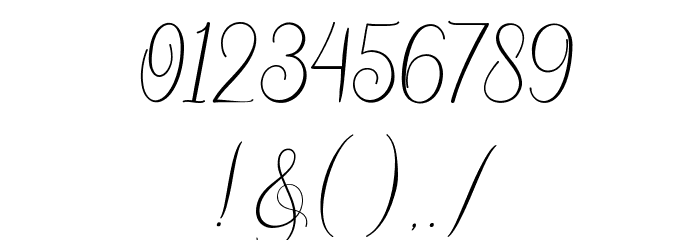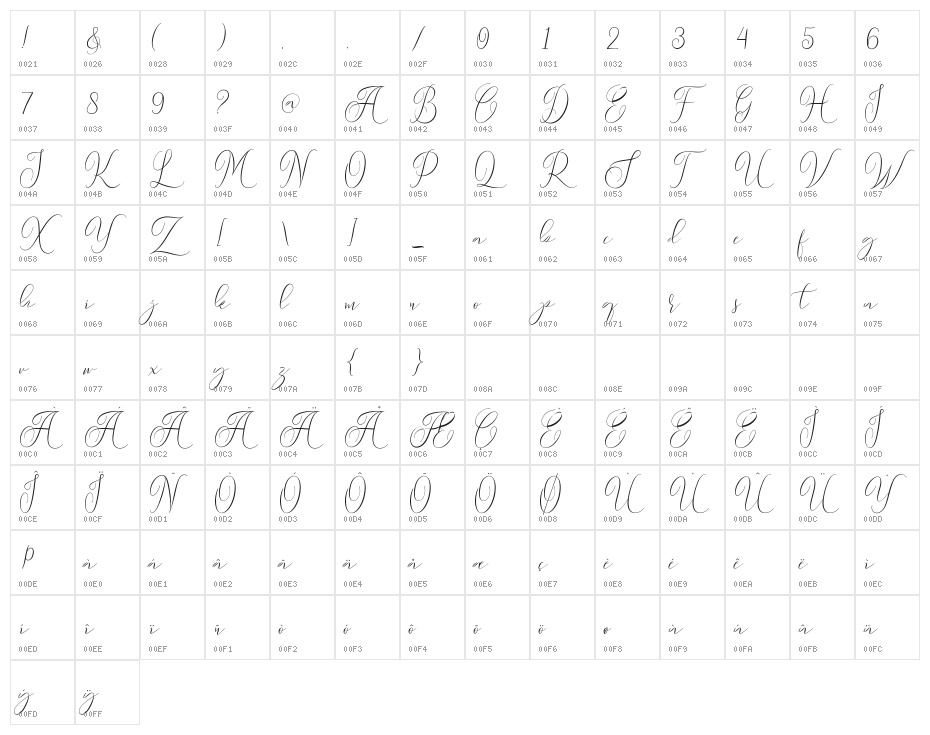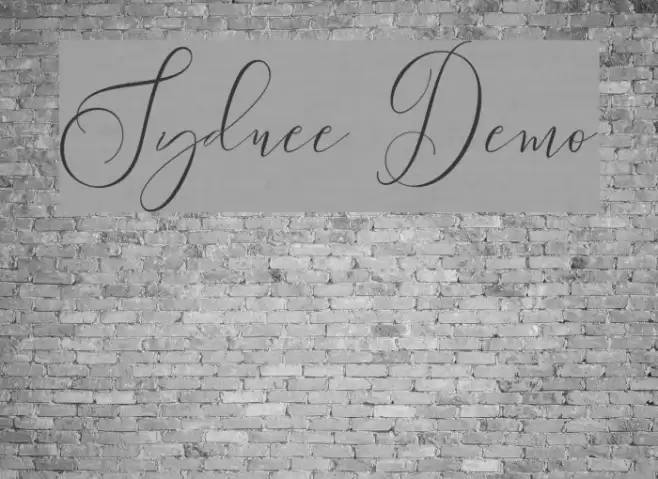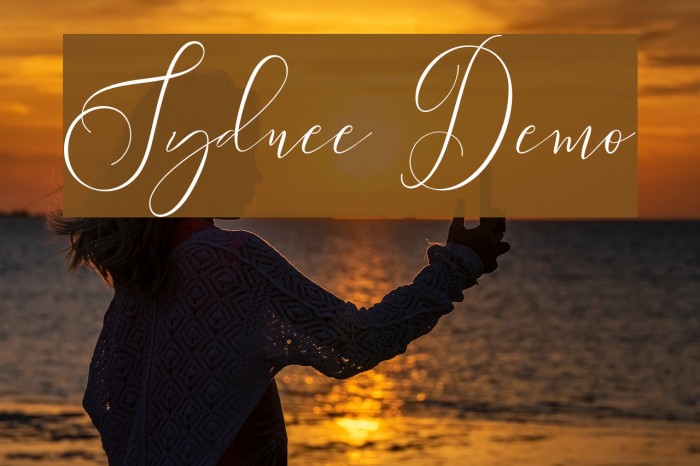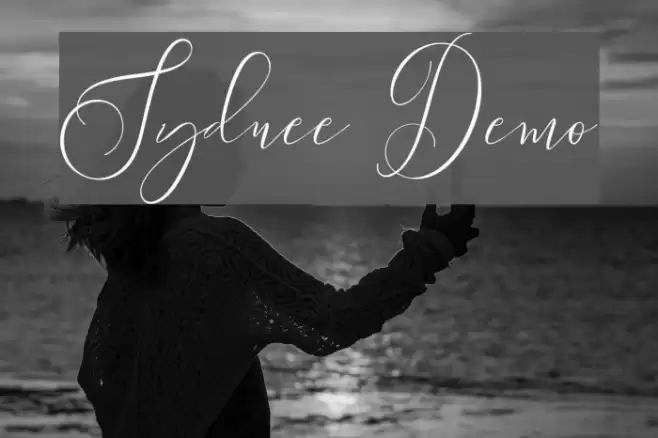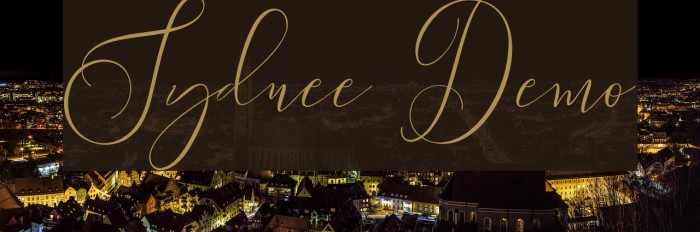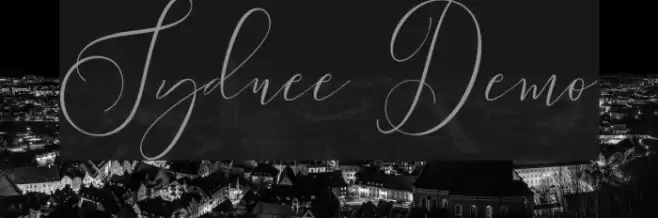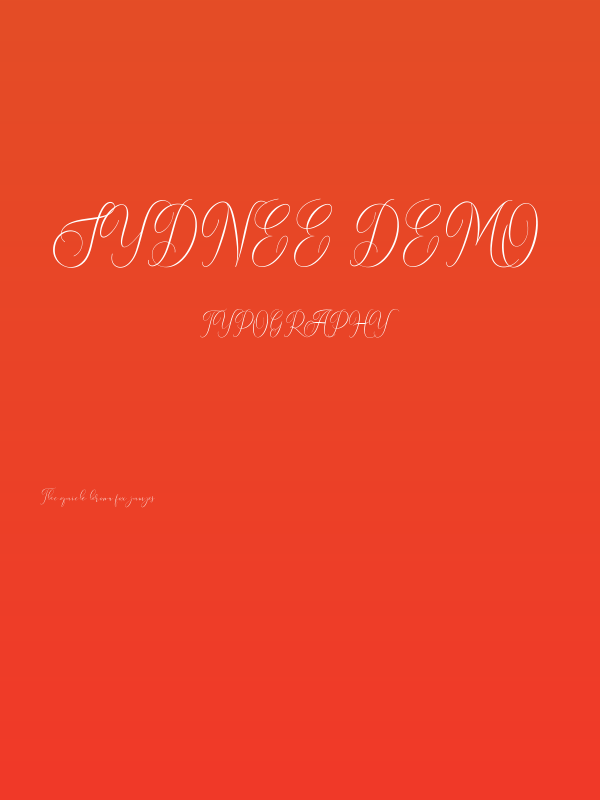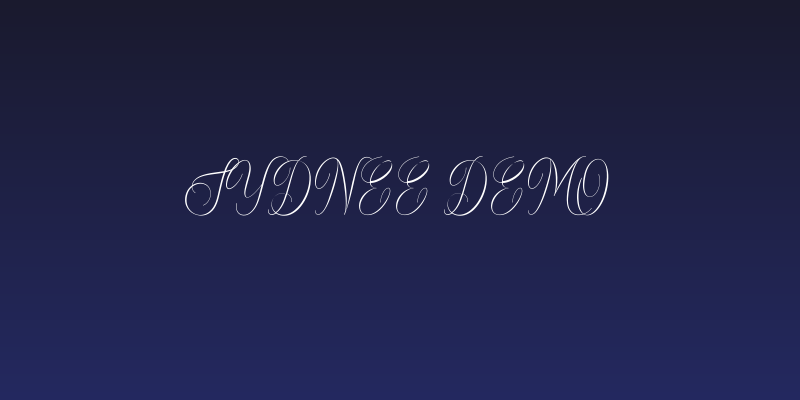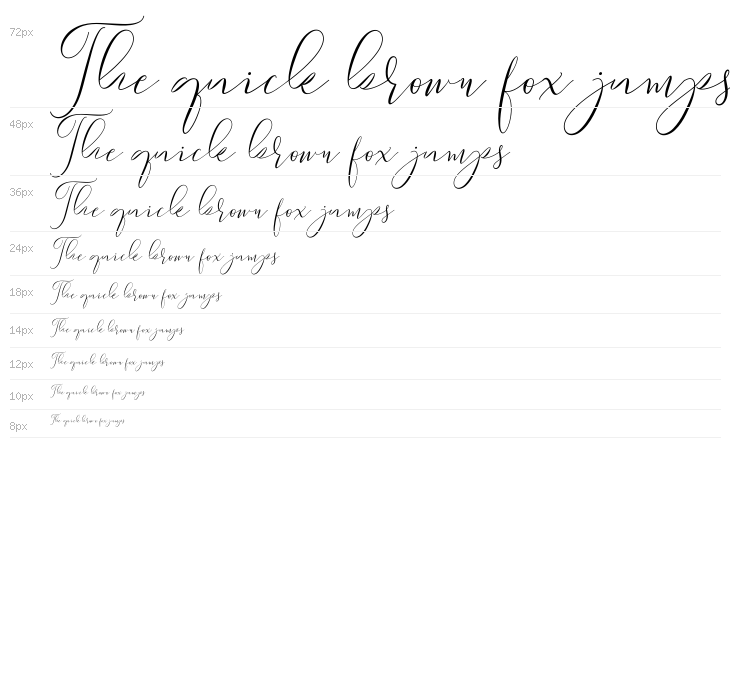
Sydnee Demo Font
Sydnee Demo Description
This elegant script font features flowing, interconnected letters with a refined and sophisticated appearance. The uppercase letters are characterized by their tall, graceful loops and swashes, while the lowercase letters maintain a fluid, cursive style that complements the uppercase beautifully. The numerals are designed with a similar elegance, featuring smooth curves and a consistent stroke width. Special characters like the ampersand and exclamation mark are crafted with the same attention to detail, adding to the font's overall charm. The font's delicate lines and stylish flair make it ideal for projects that require a touch of class and sophistication.
| Overall Style | Elegant, Sophisticated |
| Proposed Projects | Ideal for wedding invitations, elegant branding, high-end product packaging, and sophisticated event posters. |